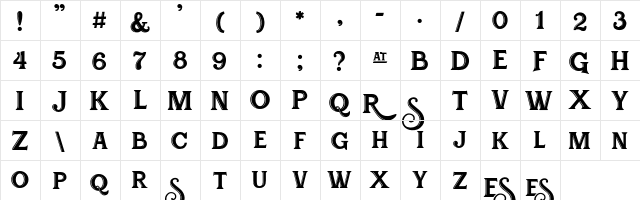
Festival Budaya XXXI Regular Font Preview
Festival Budaya XXXI Regular
Festival Budaya XXXI Regular Font Details
Design Context for Festival Budaya XXXI Typeface
Festival Budaya XXXI takes a measured approach to typography — its balanced proportions and neutral character make it a reliable workhorse for both digital and print work.